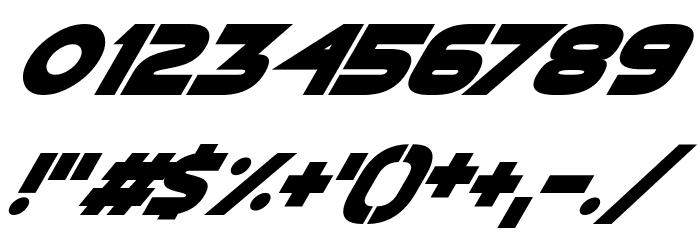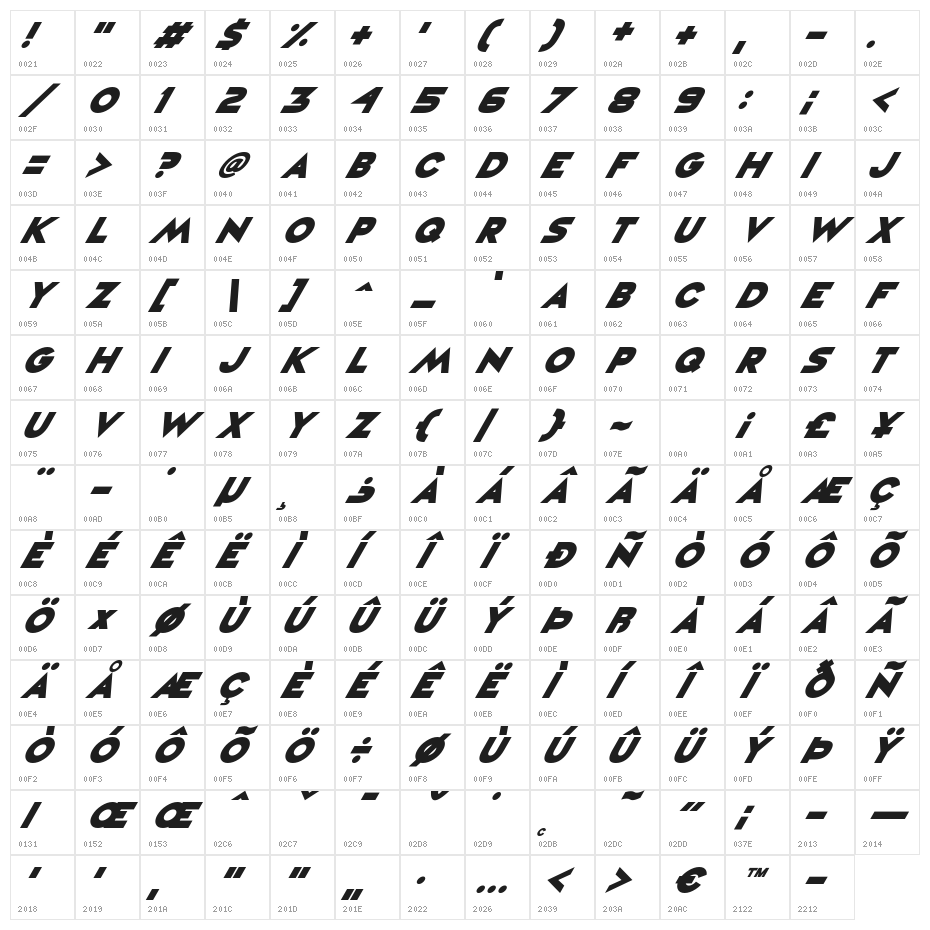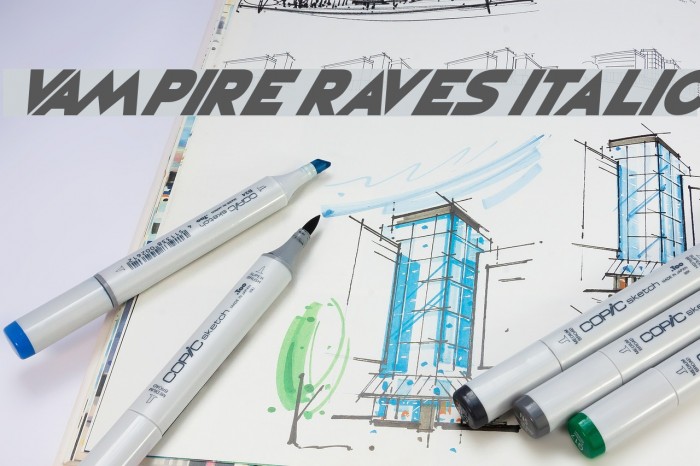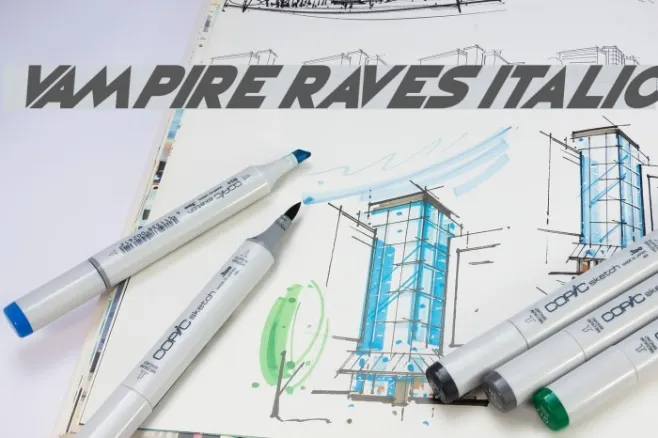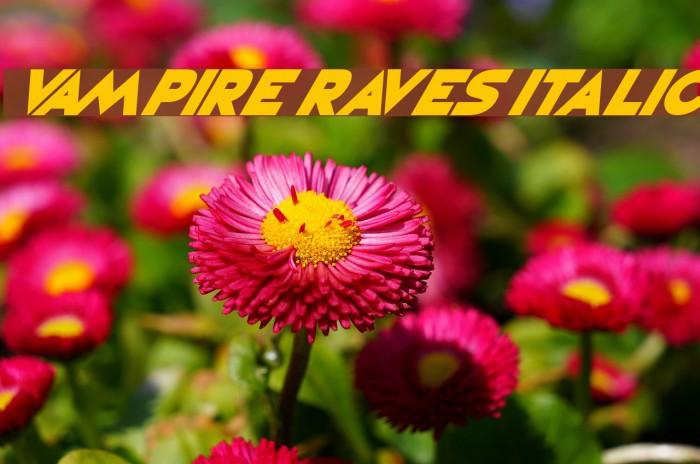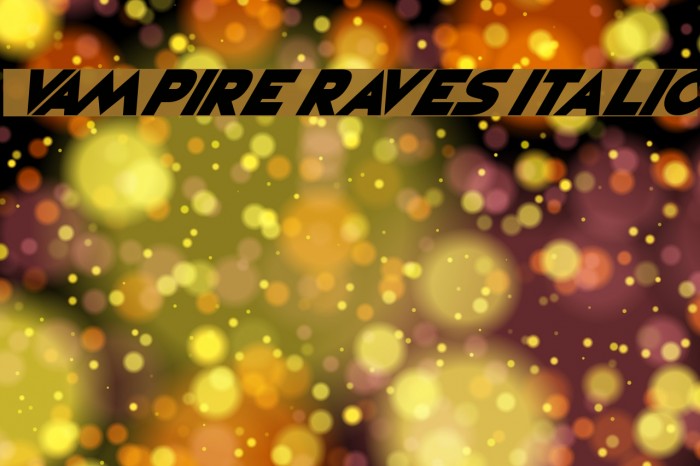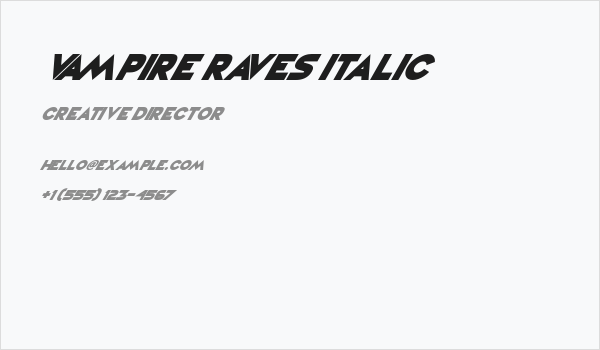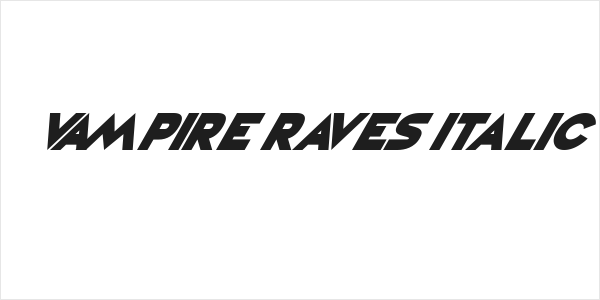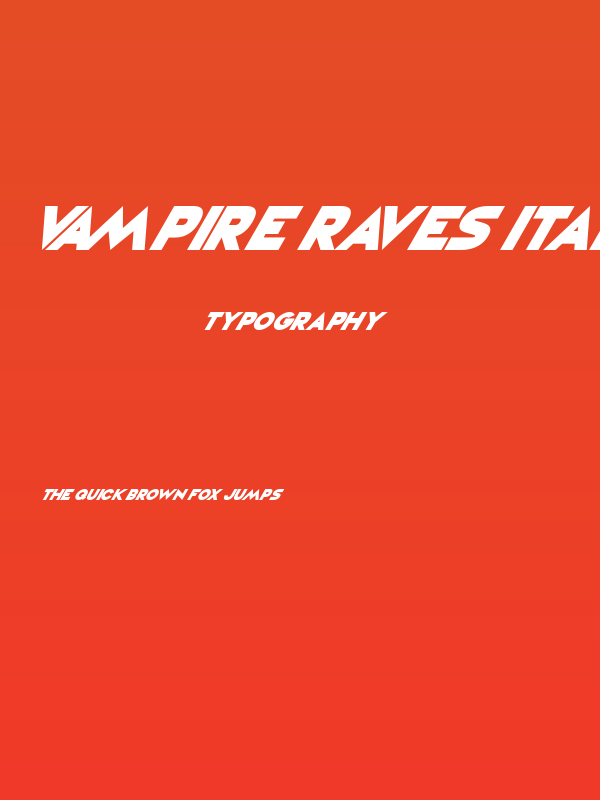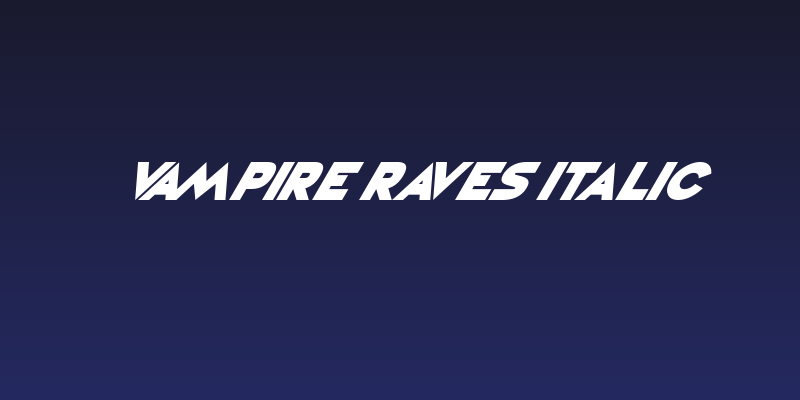
Vampire Raves Italic Font
Vampire Raves Italic Description
This font features a bold and dynamic style with a distinct italic slant, giving it a sense of motion and energy. The characters are thick and robust, with sharp angles and clean lines that create a strong visual impact. The uppercase and lowercase letters maintain a consistent style, while the numerals and special characters complement the overall design. The font's boldness and slant make it ideal for attention-grabbing headlines and titles, while its clarity ensures readability.
| Proposed Projects | Ideal for use in posters, logos, and branding materials where a bold and energetic look is desired. |